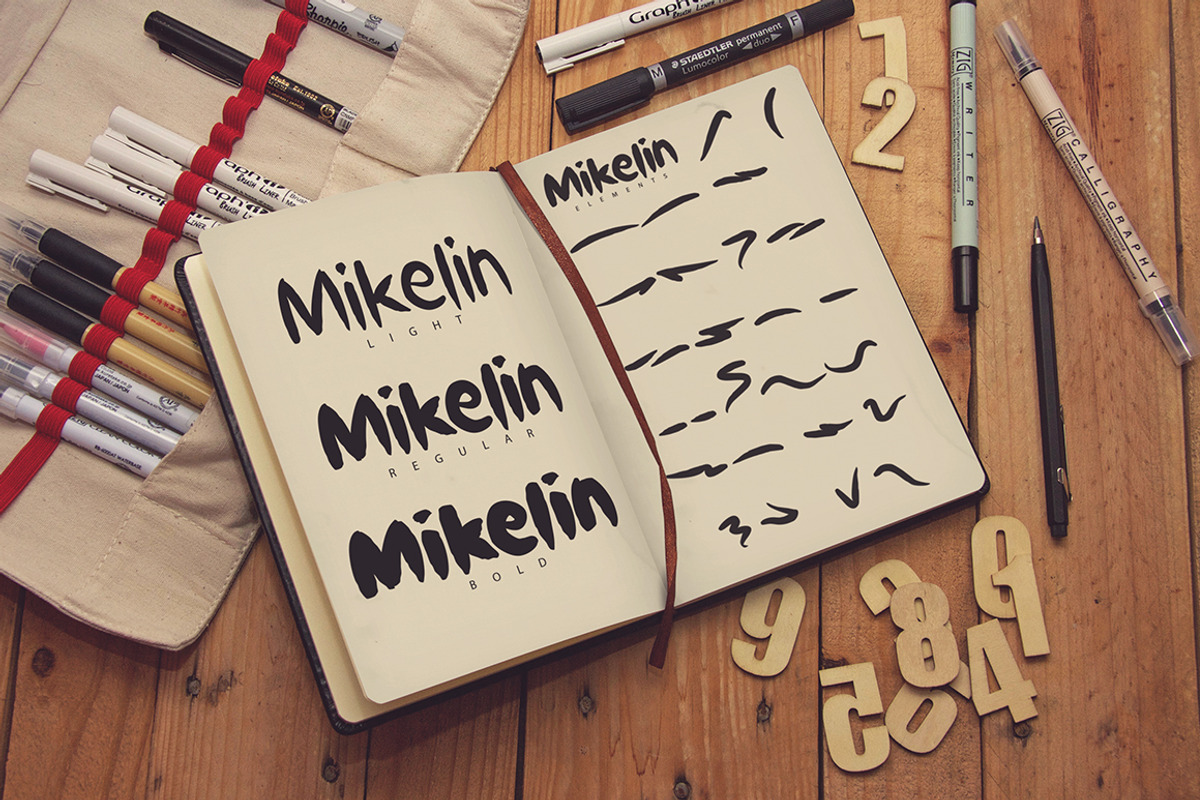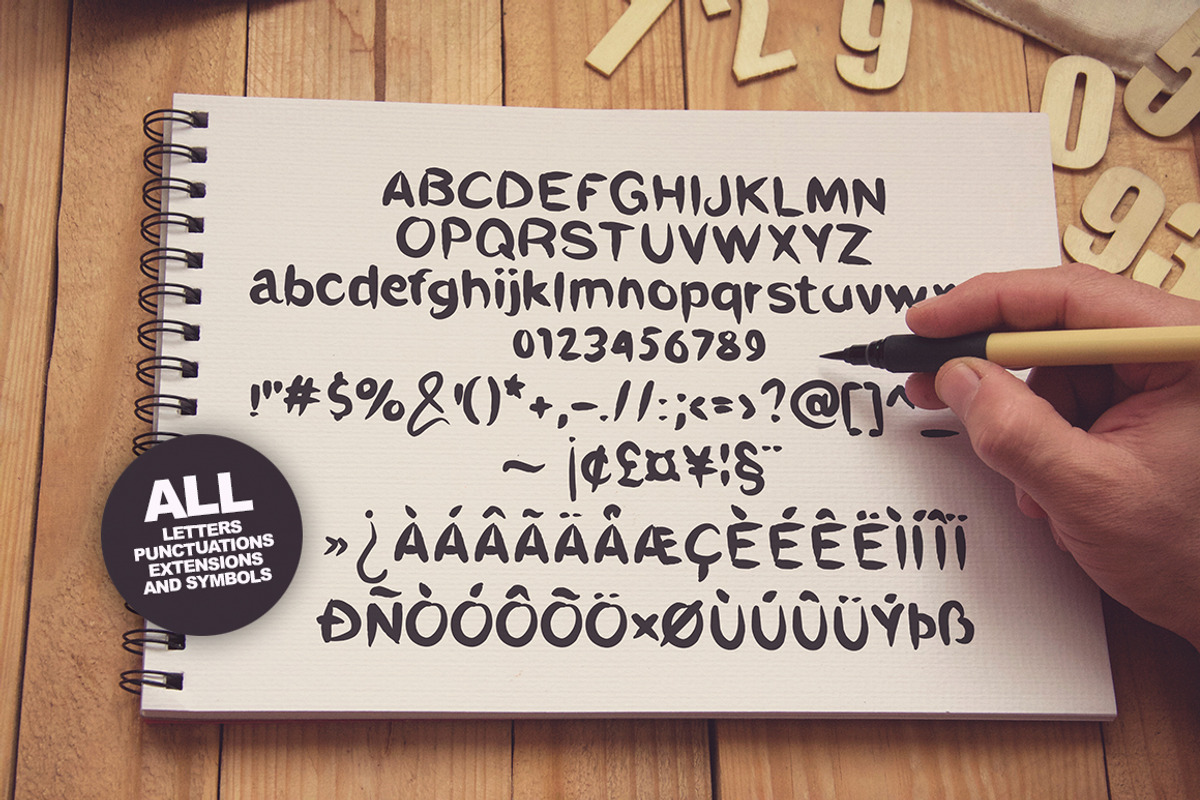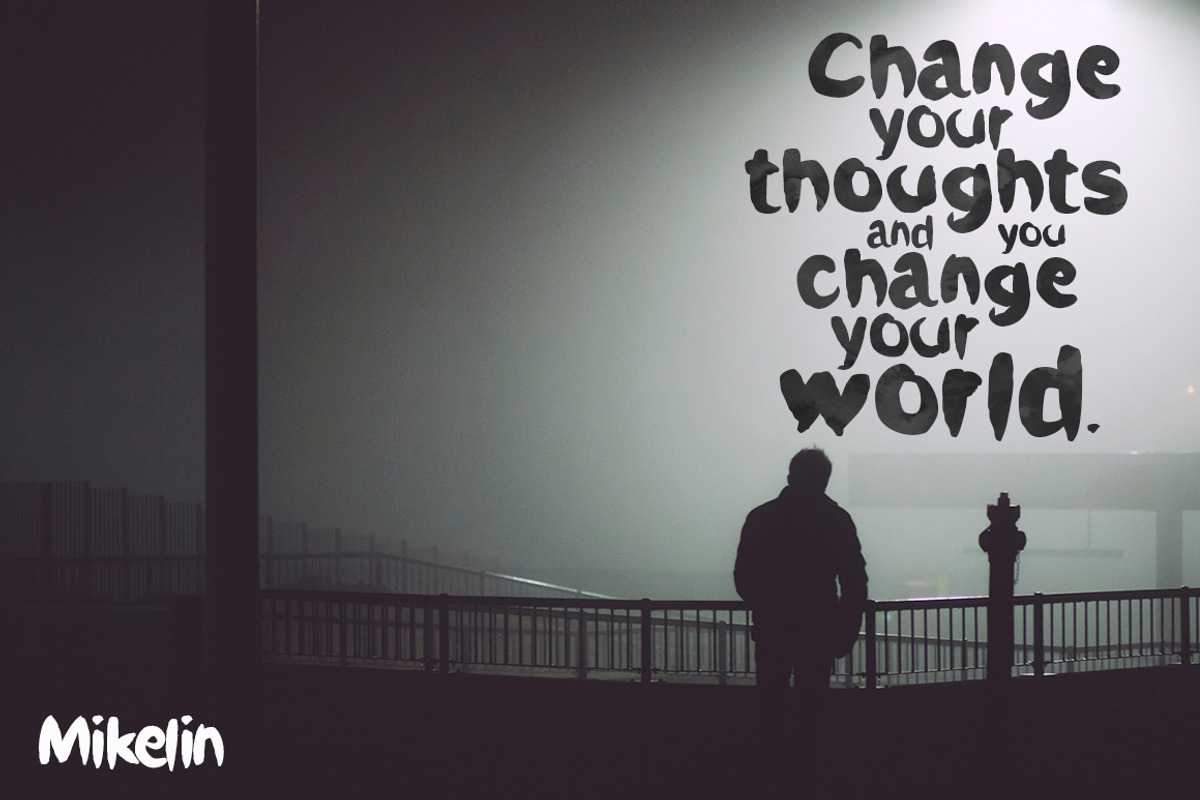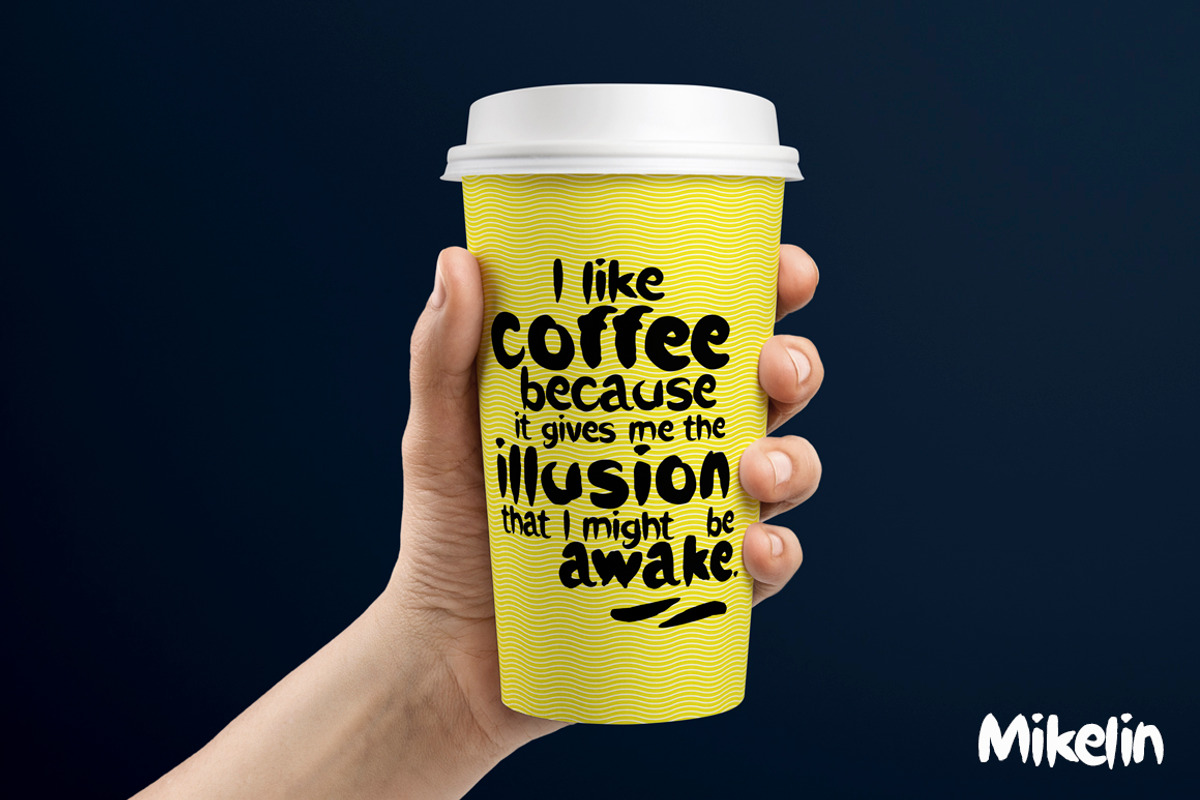
Mikelin family typeface + Extras
Mikelin family typeface + Extras by SmartDesigns is a font selected for branding, posters, packaging, typography.
Mikelin family typeface + Extras by SmartDesigns fits naturally into Branding, posters, packaging, typography.